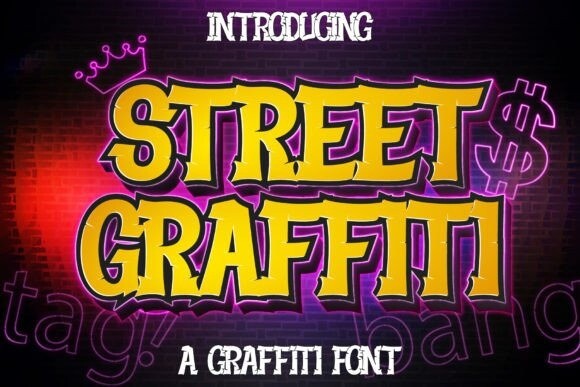
Street Graffiti Font
Street Graffiti Font is a bold and chunky lettered display font that playfully evokes the iconic look and style of graffiti. This font is suitable for designs such as t-shirts, sportswear, logos, advertisements, clothing, and more. Add this font to your urban and casual creations and you will love the outcome.